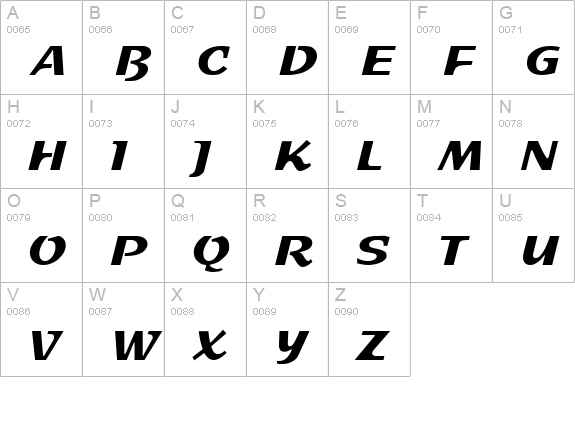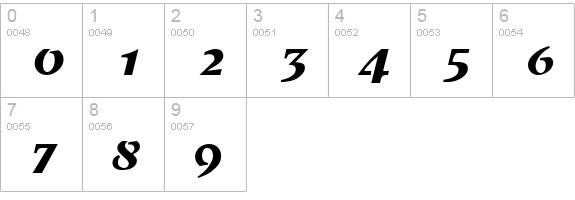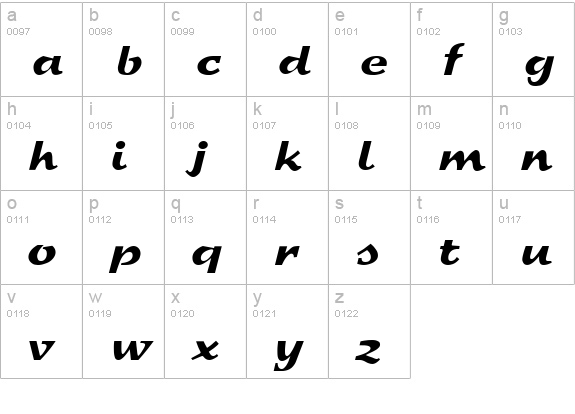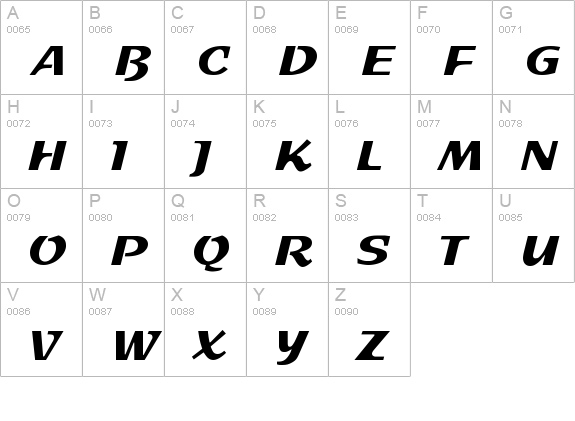
Sprint SF Font Details
Introducing Sprint SF, a stunning font that is sure to captivate and elevate your designs to new heights. With its sleek and modern design, Sprint SF effortlessly combines elegance with a touch of sophistication, making it the perfect choice for a wide range of projects. Designed with precision and attention to detail, Sprint SF offers a harmonious balance between legibility and style. Its clean lines and smooth curves create a sense of fluidity, ensuring that each character seamlessly flows into the next. This font is truly a testament to the craftsmanship of typography. One of the greatest features of Sprint SF is that it is freely available to download at FontsMarket.com. Yes, you read that right - this remarkable font can be yours without any cost. The creators of Sprint SF believe in the power of accessibility and inclusivity, making it a font that can be enjoyed by everyone. Whether you're working on a branding project, a website design, or even a personal project, Sprint SF will enhance your work and leave a lasting impression. Its versatility allows it to adapt effortlessly to any creative concept, while still maintaining its distinctive character. With its wide range of weights and styles, Sprint SF offers endless possibilities for customization. Whether you prefer a bold and impactful look or a more refined and elegant aesthetic, this font has got you covered. Its versatility ensures that you can create cohesive designs across different mediums and platforms. So why wait? Experience the beauty and versatility of Sprint SF today. Download this incredible font for free at FontsMarket.com and embark on a journey of creativity and innovation. Elevate your designs with Sprint SF and make a lasting impression with every project you undertake.